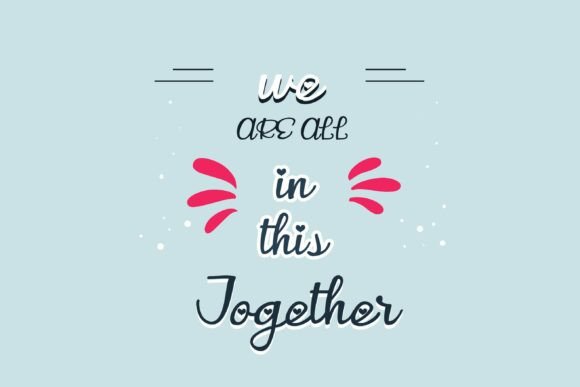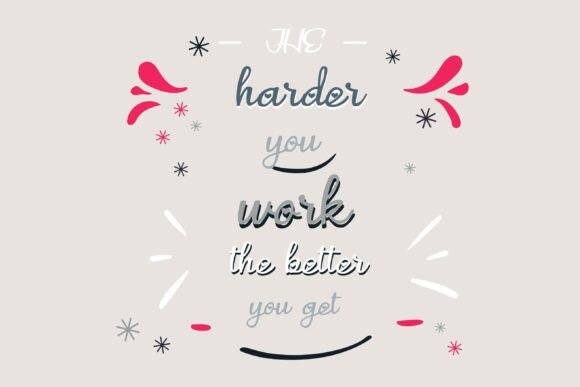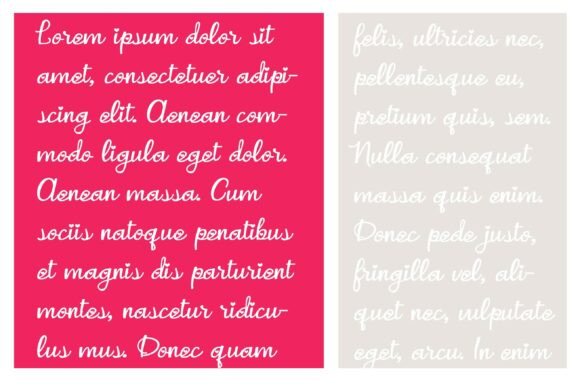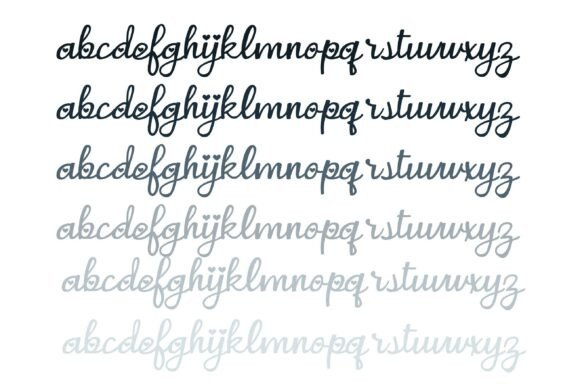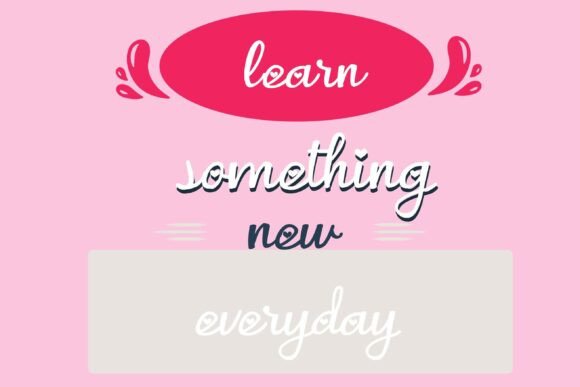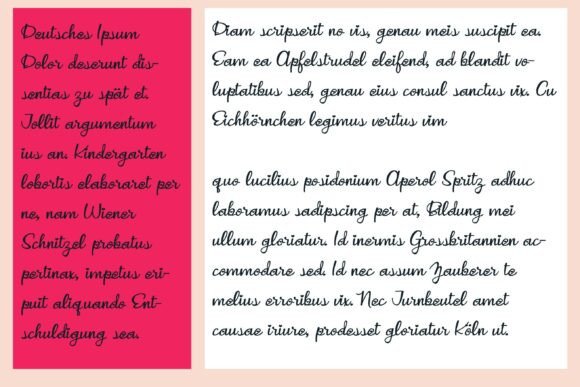
Better Together In Love: A Symphony of Handwritten Connection
Embracing the beauty of human touch, the Better Together In Love font is a fluid and soulful handwritten script that captures the rhythm of a heartfelt letter. This typeface isn’t just about pretty curves; it’s about the emotional resonance of connection. The characters lean into one another with a natural grace, featuring delicate swashes and heart-shaped flourishes that sprout from the ends of letters like growing vines.
The Essence of Better Together In Love Font
The Better Together In Love font is a masterpiece of handwritten elegance, designed to evoke the warmth and intimacy of a handwritten letter. Its fluid strokes and connected characters create a sense of movement and flow, as if the words are dancing across the page. This typeface is perfect for designers and crafters who want to add a personal touch to their projects, whether it’s a wedding invitation, a love letter, or a heartfelt message.
Design Features and Characteristics
The Better Together In Love font boasts a range of design features that make it both beautiful and functional. Some of its key characteristics include:
- Fluid Strokes: The font features smooth, flowing strokes that create a sense of movement and elegance.
- Connected Characters: The characters are connected by delicate swashes and flourishes, creating a sense of continuity and flow.
- Heart-Shaped Flourishes: The font features heart-shaped flourishes that add a touch of whimsy and romance.
- Delicate Swashes: The swashes are delicate and elegant, adding a touch of sophistication to the font.
Applications and Pairing Options
The Better Together In Love font is a versatile typeface that can be used in a variety of applications, from wedding stationery to romantic messages. Here are some ideas for using this beautiful font:
- Wedding Stationery: Use the Better Together In Love font for wedding invitations, place cards, menus, and more.
- Romantic Messages: Add a personal touch to love letters, Valentine’s Day cards, and other romantic messages.
- Pairing Options: Pair the Better Together In Love font with a classic serif font for a formal look or a rustic typewriter font for a more bohemian feel.
Why Designers and Crafters Love Better Together In Love Font
Designers and crafters love the Better Together In Love font for its unique combination of elegance and personality. Here are some reasons why:
- Highly Legible: Despite its artistic nature, the Better Together In Love font is highly legible, making it a reliable workhorse for designers.
- Incredibly Artistic: The font’s fluid strokes and connected characters make it a beautiful addition to any project.
- Personal Personality: The Better Together In Love font has a personal personality that adds a touch of warmth and intimacy to any project.
Tips and Tricks for Using Better Together In Love Font
Here are some tips and tricks for getting the most out of the Better Together In Love font:
- Use it for Headlines: The Better Together In Love font is perfect for headlines and titles, where its elegance and personality can shine.
- Pair it with Images: Pair the font with romantic images, such as flowers or hearts, to create a beautiful and cohesive look.
- Experiment with Colors: Experiment with different colors and textures to add depth and interest to your project.
The Better Together In Love font is a beautiful and elegant typeface that captures the essence of human connection. With its fluid strokes, connected characters, and heart-shaped flourishes, this font is perfect for designers and crafters who want to add a personal touch to their projects. Whether you’re creating wedding stationery, romantic messages, or simply want to add a touch of elegance to your design, the Better Together In Love font is a versatile and reliable choice.